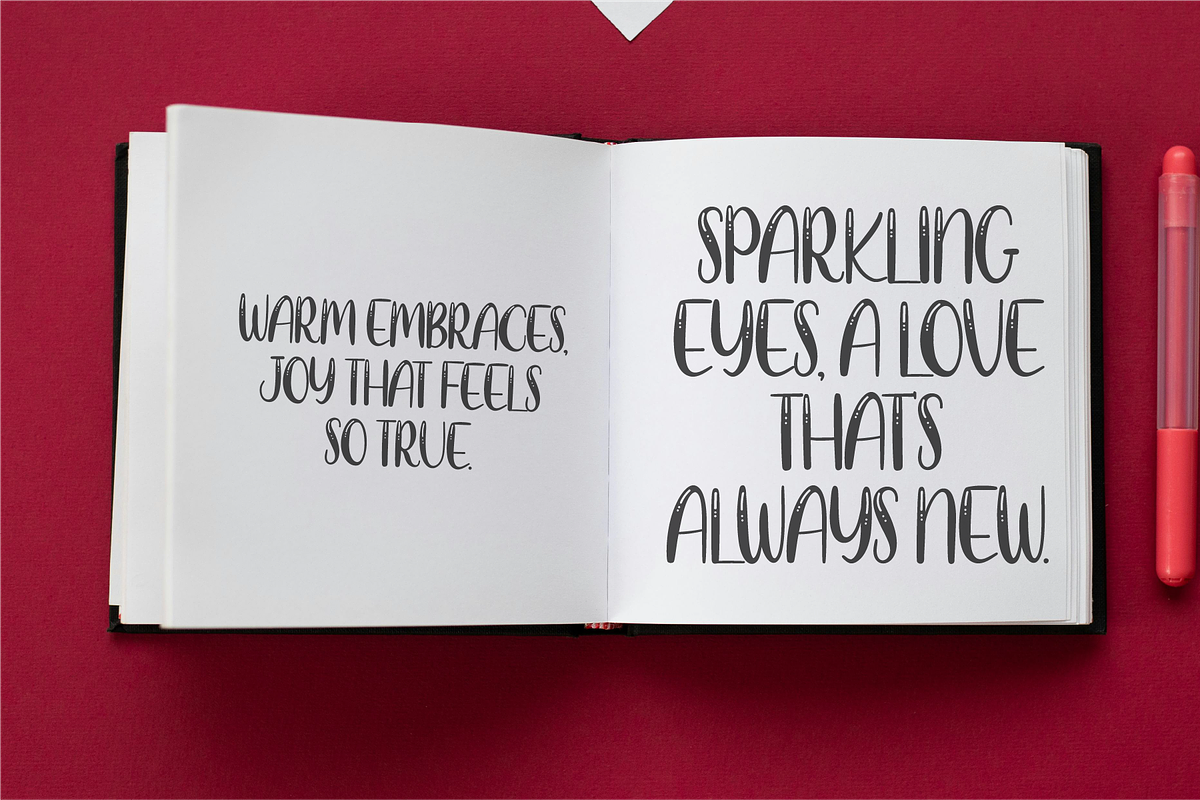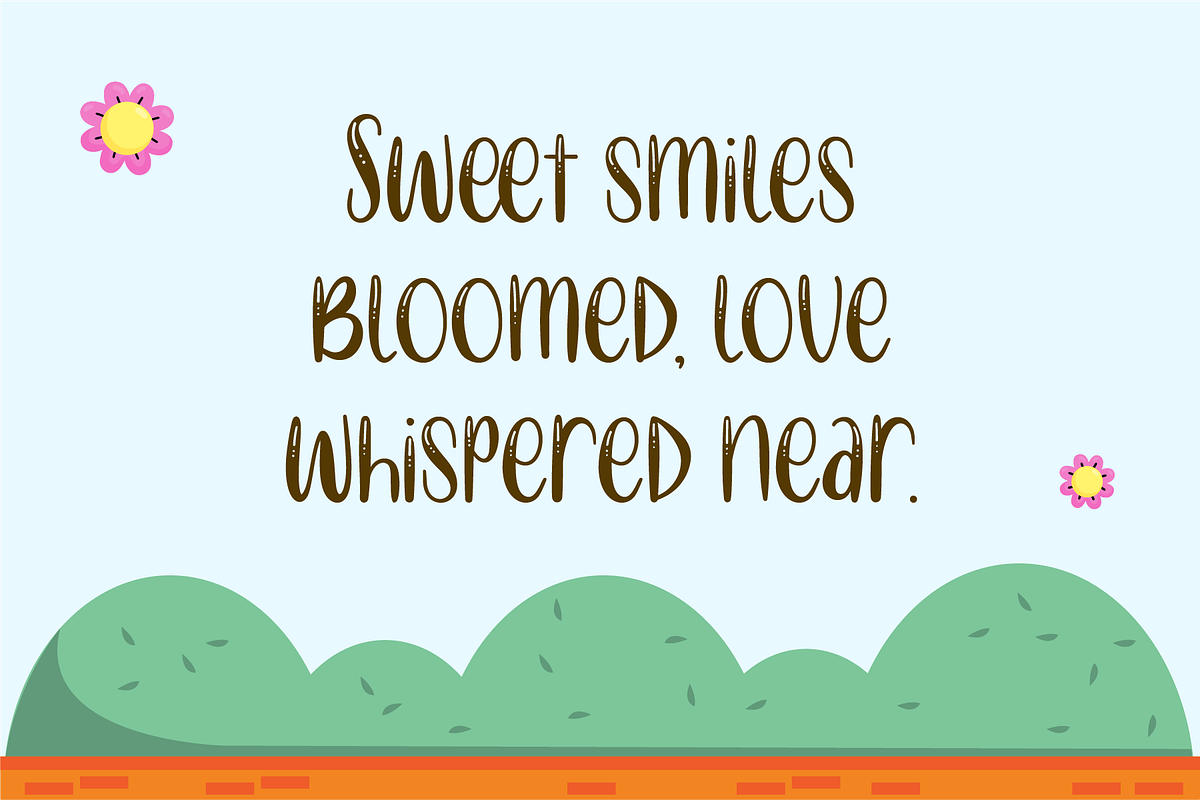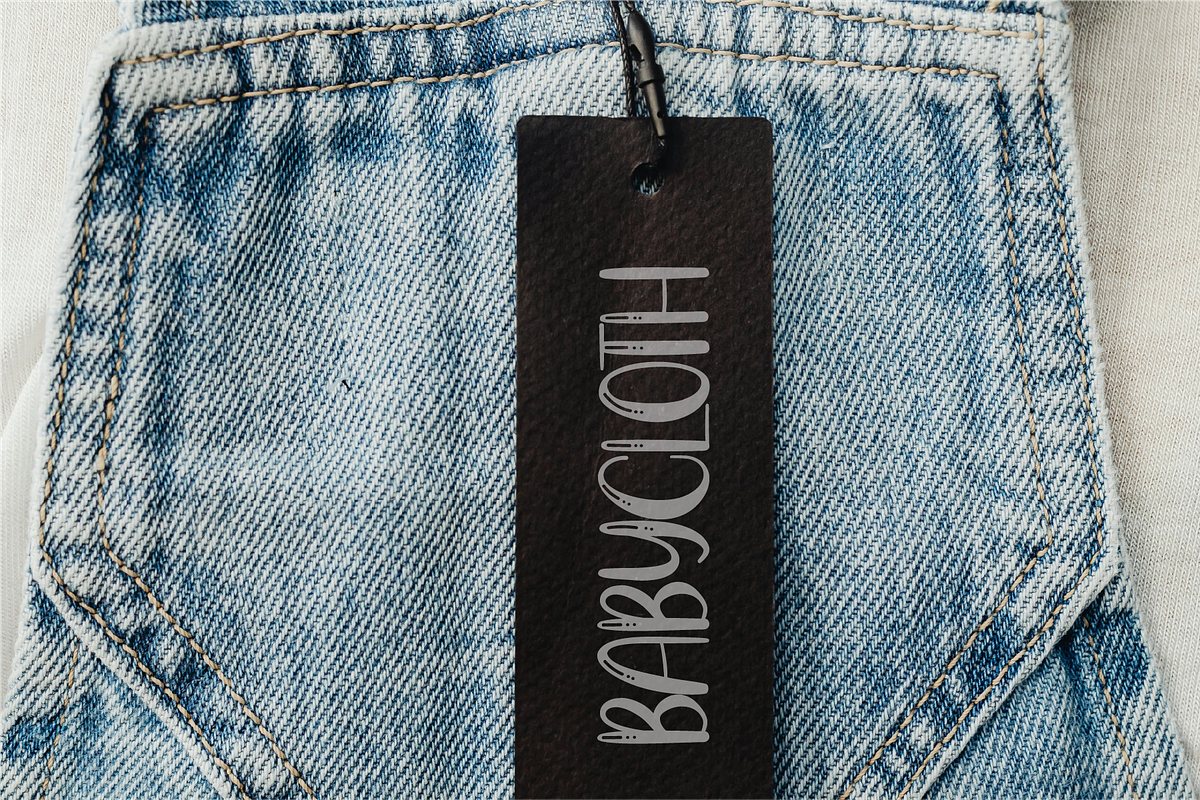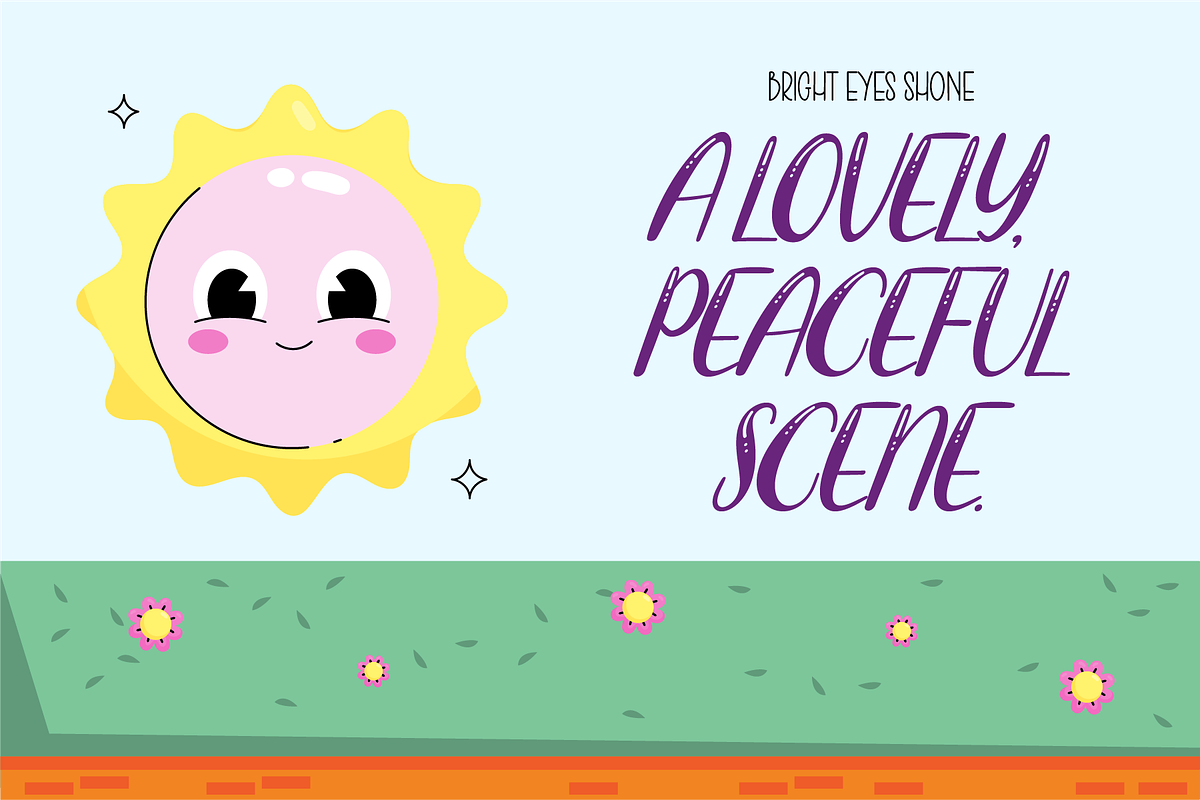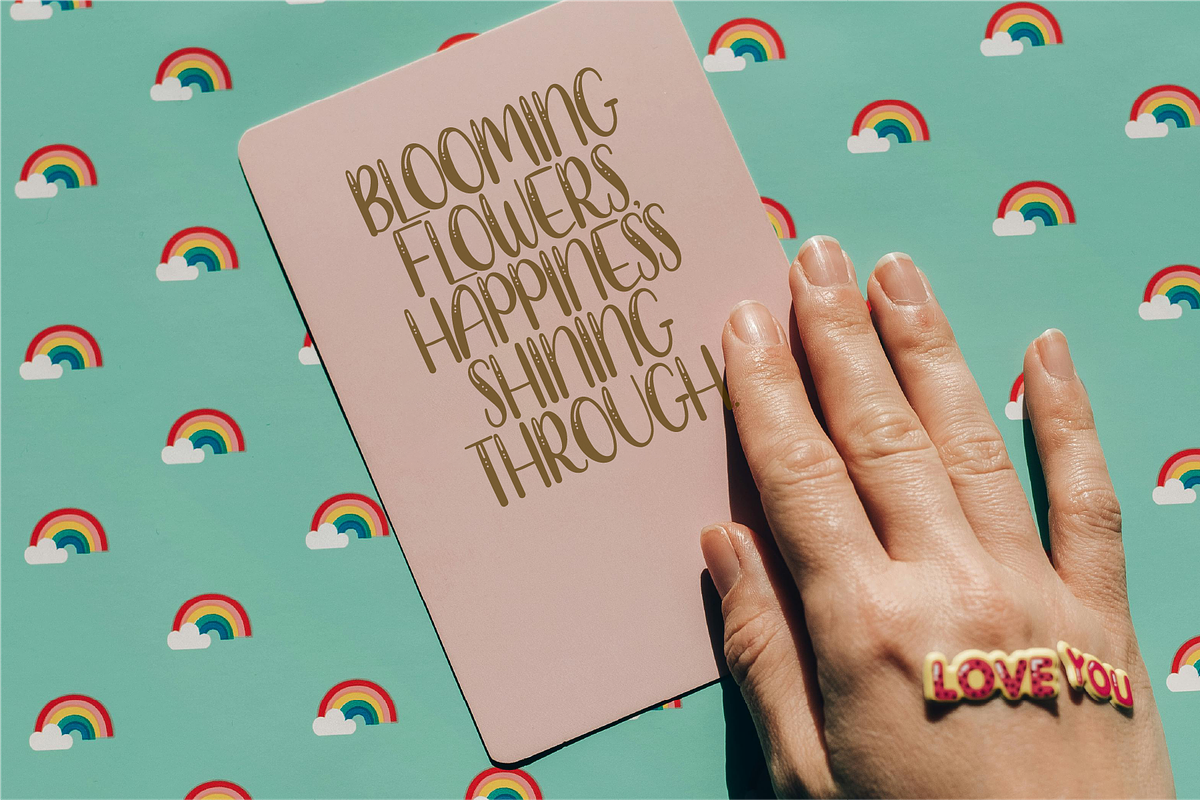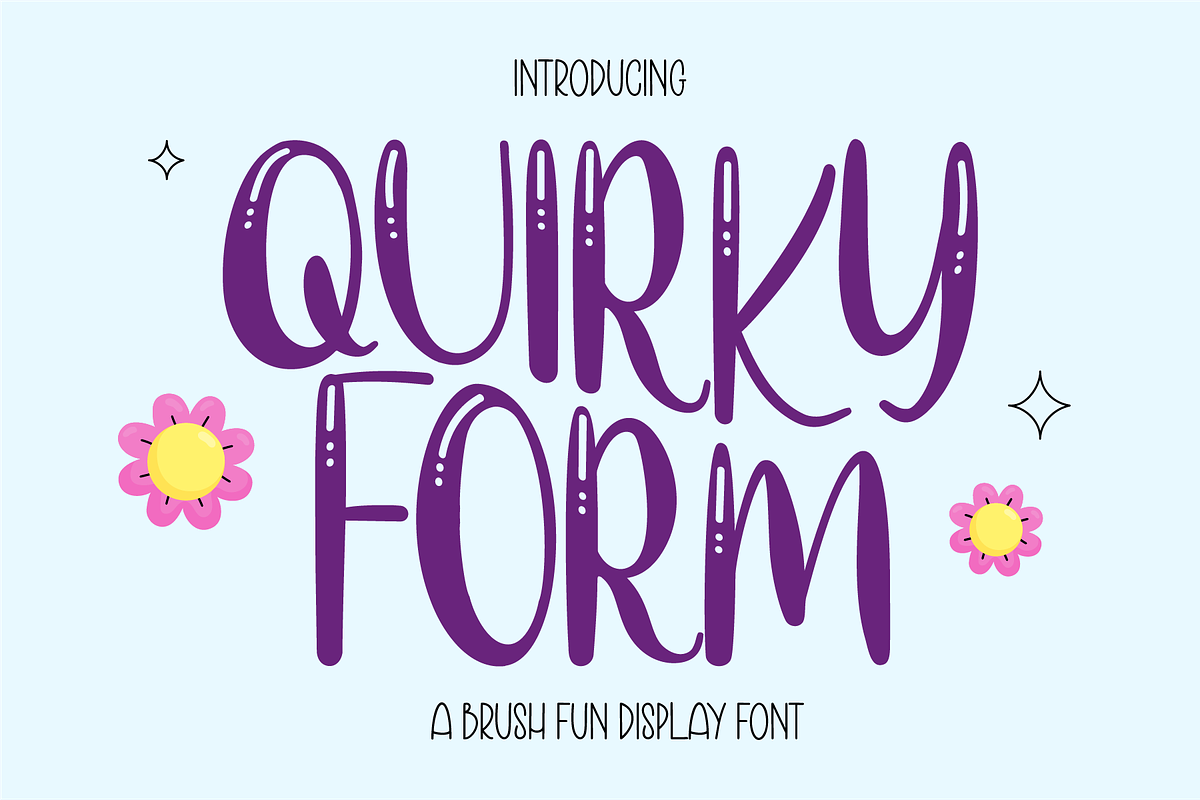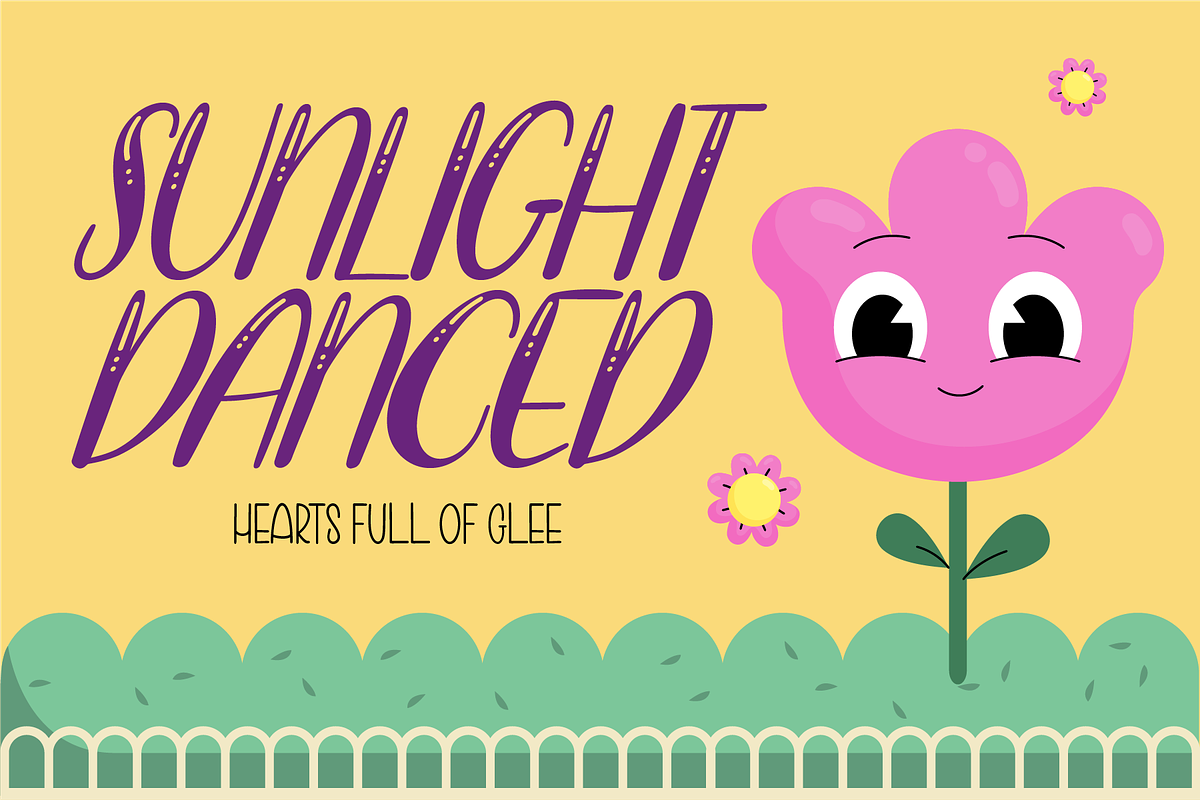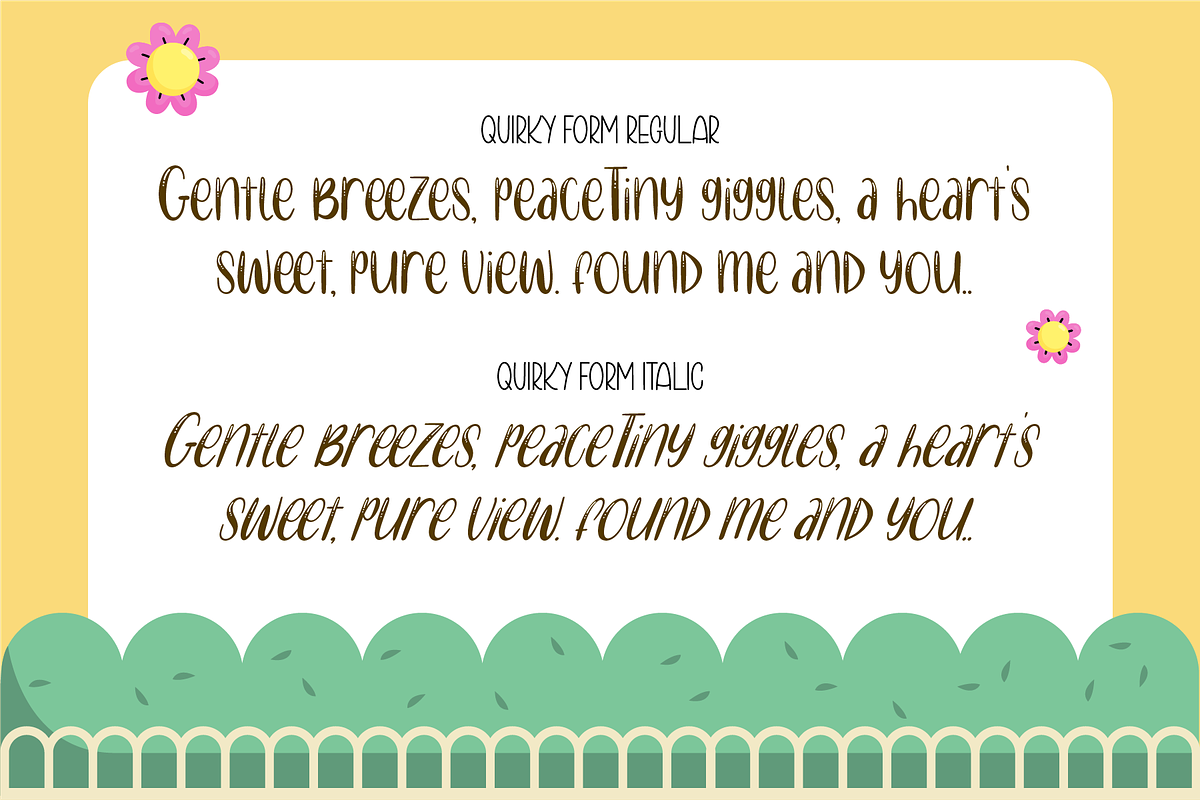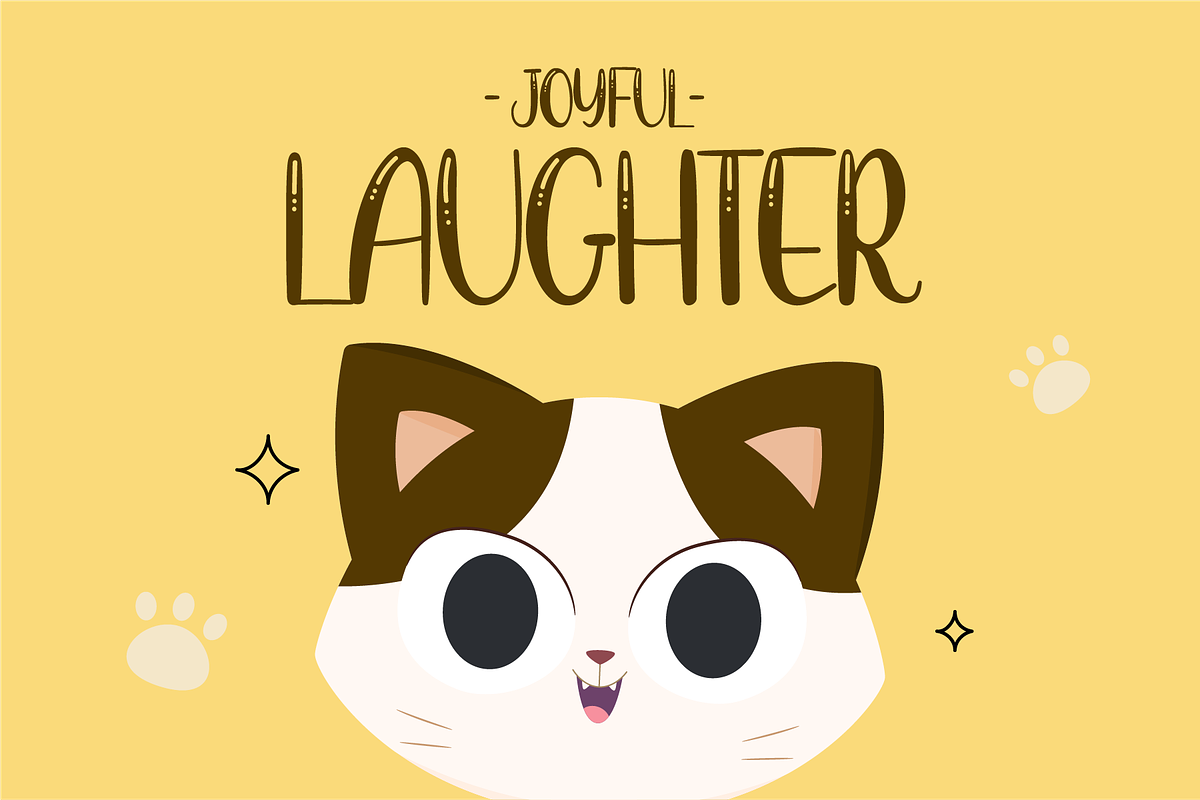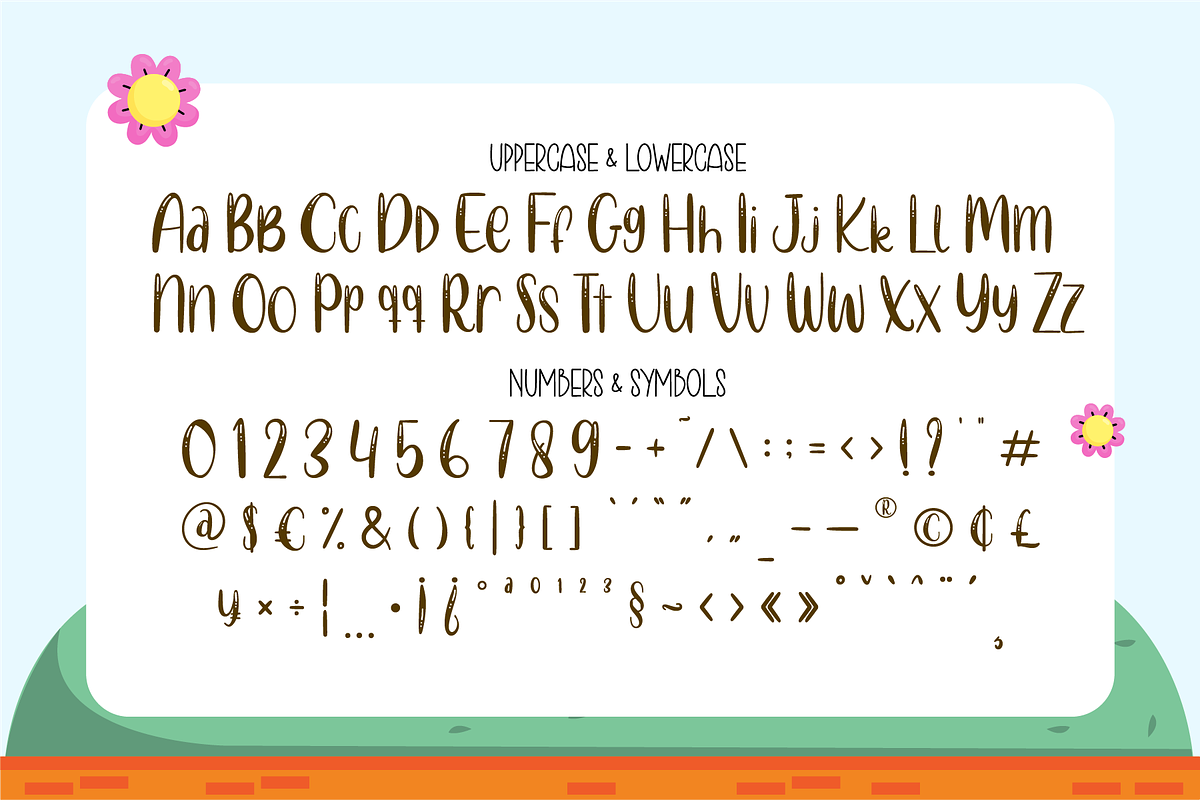
Quirky Form - Brush Fun Display
Quirky Form – A Fun & Whimsical Brush Display Font Add a pop of personality to your designs with Quirky Form, a brush fun display font full of charm, bounce, and joyful character! With its chunky monoline strokes, playful curves, and cartoon-like detailing, this font is made to stand out in the most delightful way. Ideal for kids' projects, playful branding, classroom materials, greeting cards, quotes, or social media graphics, Quirky Form brings a dose of positivity and fun to every layout. The slightly exaggerated shapes and bubbly energy make this font perfect for designs that don’t take themselves too seriously.
Why Choose Quirky Form?
🌼 Cute & Playful Personality: Whimsical letterforms that radiate joy and friendliness.
🖌 Handcrafted Brush Look: Adds a lively, informal feel to your work.
🎨 Perfect for Creative & Kids Themes: Ideal for education, crafts, toys, or cheerful branding.
🌍 Complete Character Set: Includes multilingual support, numbers, and symbols. Let your designs laugh, smile, and dance—Download Quirky Form and bring your ideas to life with a burst of happiness and charm! 🎉💜
- Standard Character A-Z, a-z, 0-9, Punctuation & symbols
- Regular and Italic